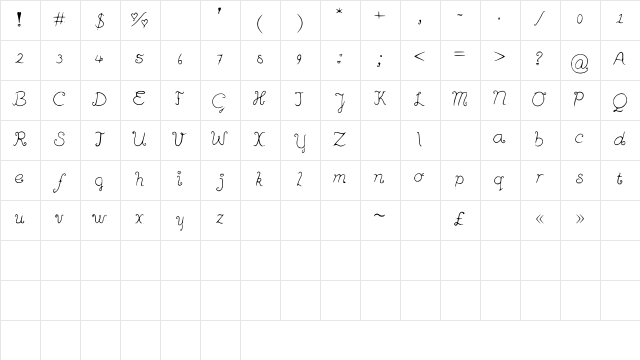
Rainbowbitch2 Medium
Design Context for Rainbowbitch2 Typeface
Rainbowbitch2 is a composed and adaptable typeface that performs quietly and consistently across a wide range of design contexts.